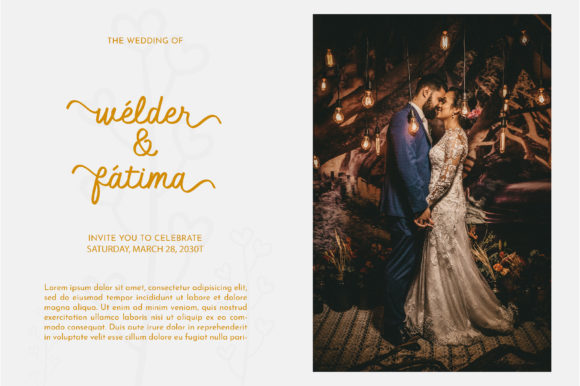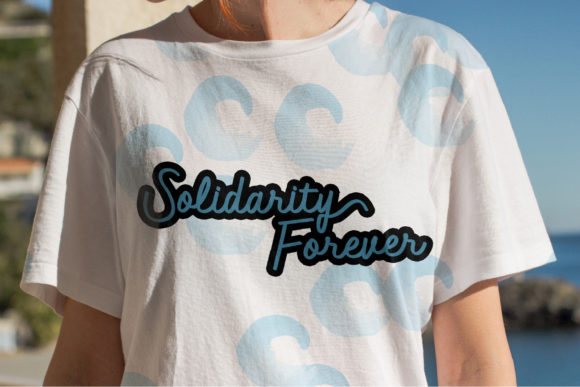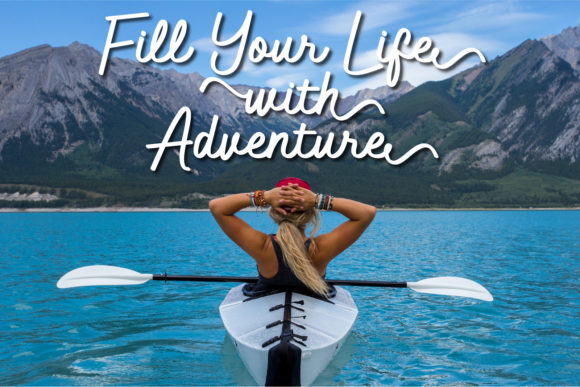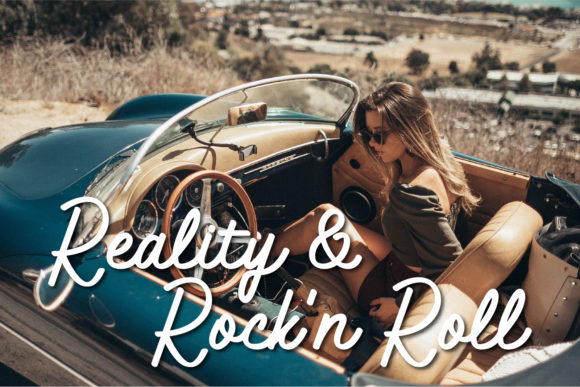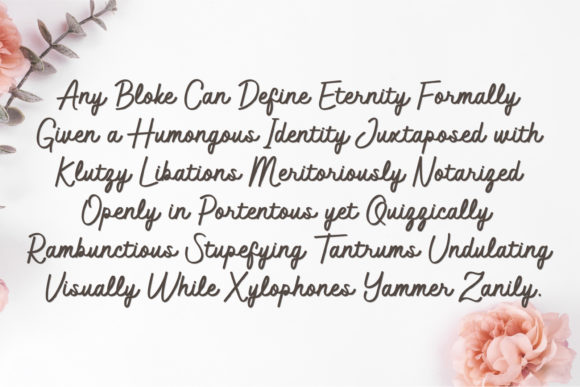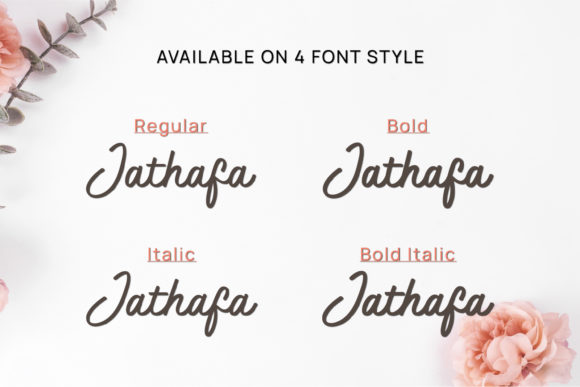
Introduction to Jathafa Font
Jathafa is a cute and casual handwritten font with a very friendly feel.
Whether youโre looking for fonts to make beautiful wedding invitations, beautiful artwork, interesting social media posts, and funny greeting cards Jathafa also has several alternative letters that can make your project look modern, luxurious and classy.
Key Features of Jathafa Font
Why Choose Jathafa Font?
Jathafa Font offers exceptional quality and versatility, making it a valuable addition to your design toolkit. Whether you’re creating for personal projects or commercial use, Jathafa Font delivers professional results.